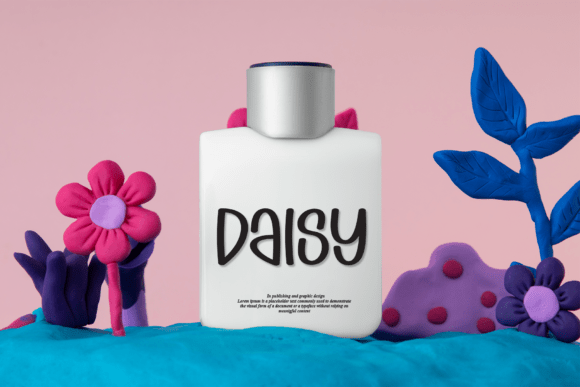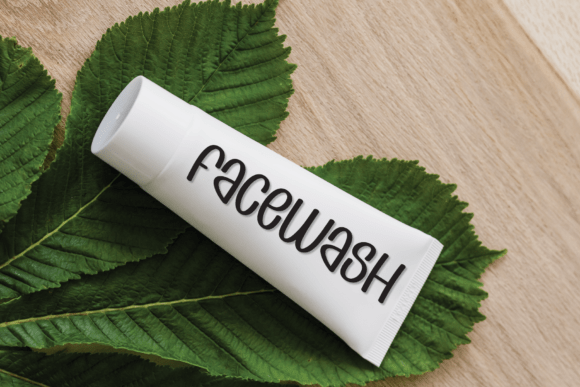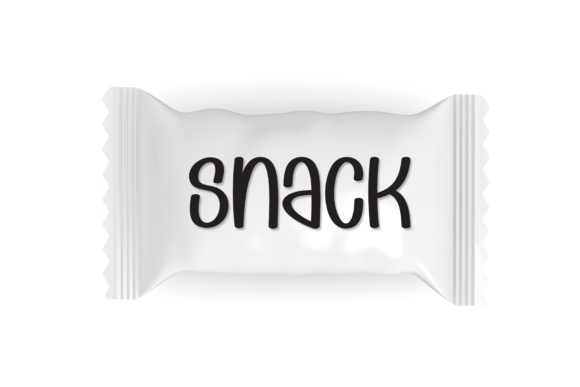
Introduction to Preppy Varsity Font
Bring a dash of youthful energy and academic charm to your designs with Preppy Varsity, a playful typeface that reimagines the classic collegiate look.
Featuring rounded terminals, tall x-heights, and unique “looped” lowercase forms, this font balances a hand-drawn soul with a clean, structured silhouette It is the premier choice for back-to-school marketing, social media headers, casual apparel branding, and modern stationery.
Why Choose Preppy Varsity Font?
Preppy Varsity Font offers exceptional quality and versatility, making it a valuable addition to your design toolkit. Whether you’re creating for personal projects or commercial use, Preppy Varsity Font delivers professional results.